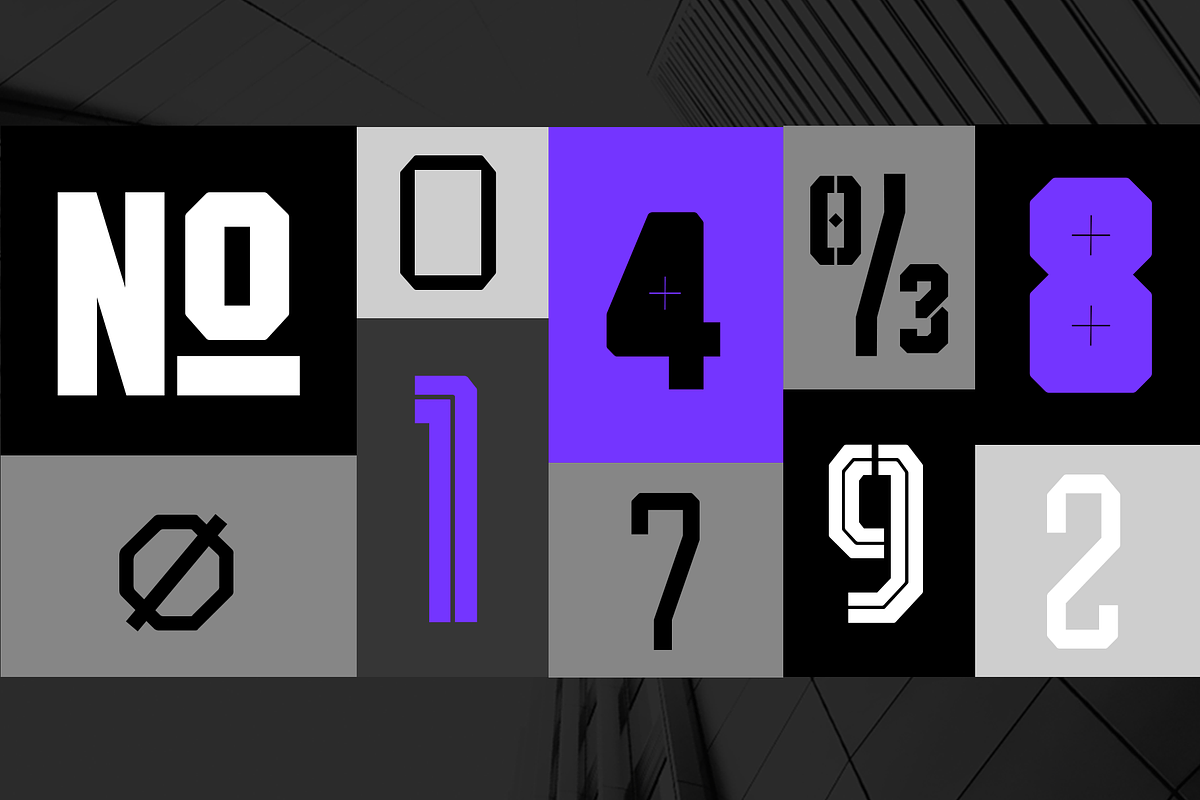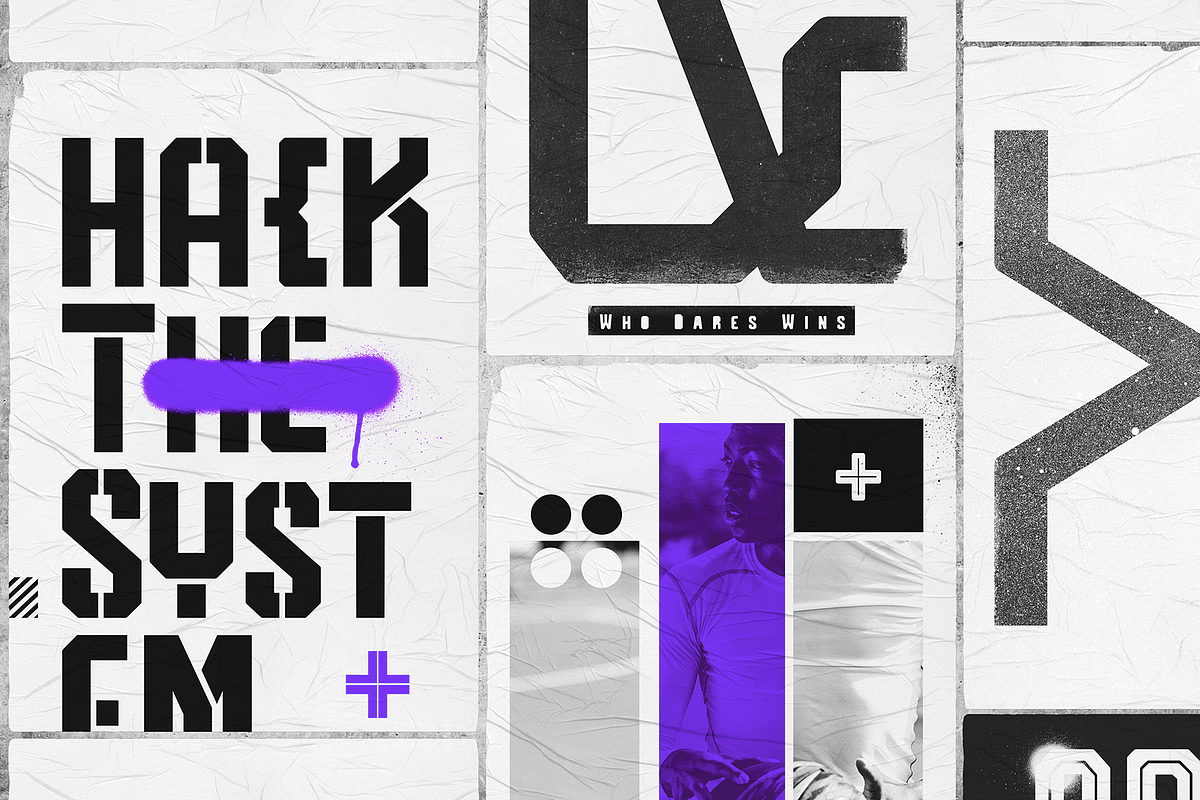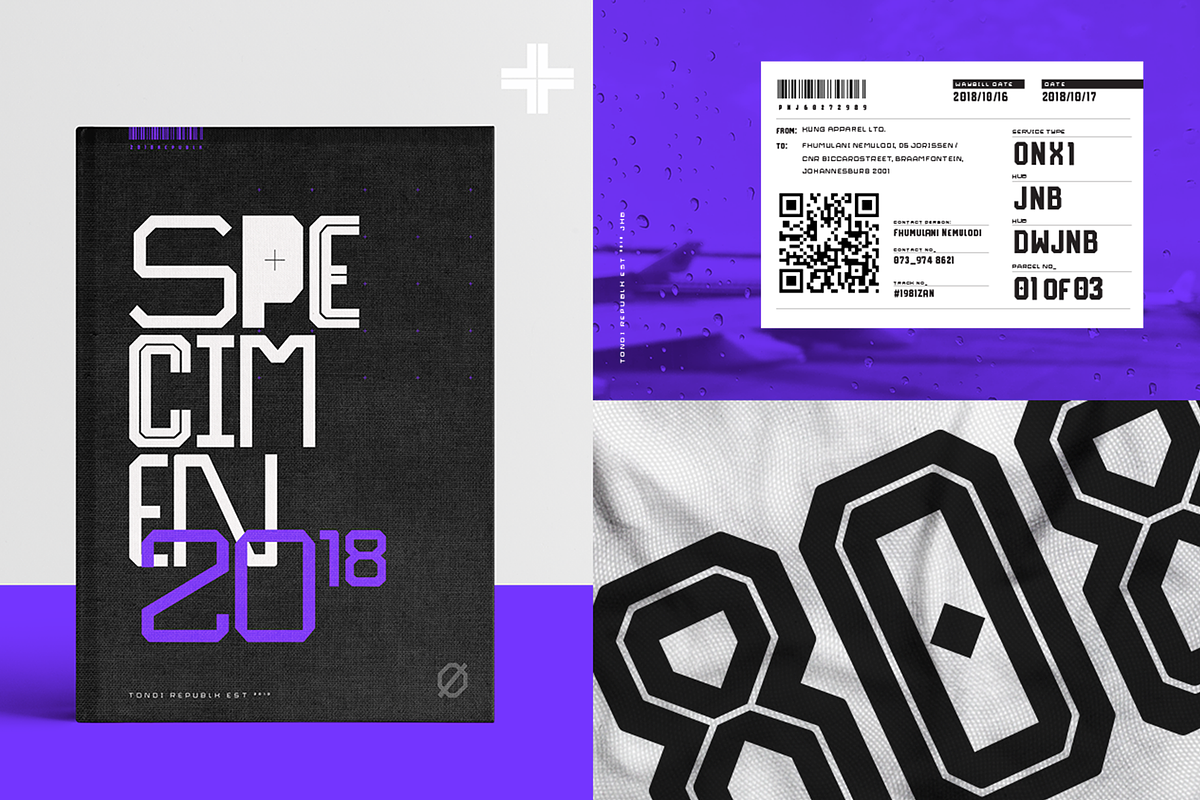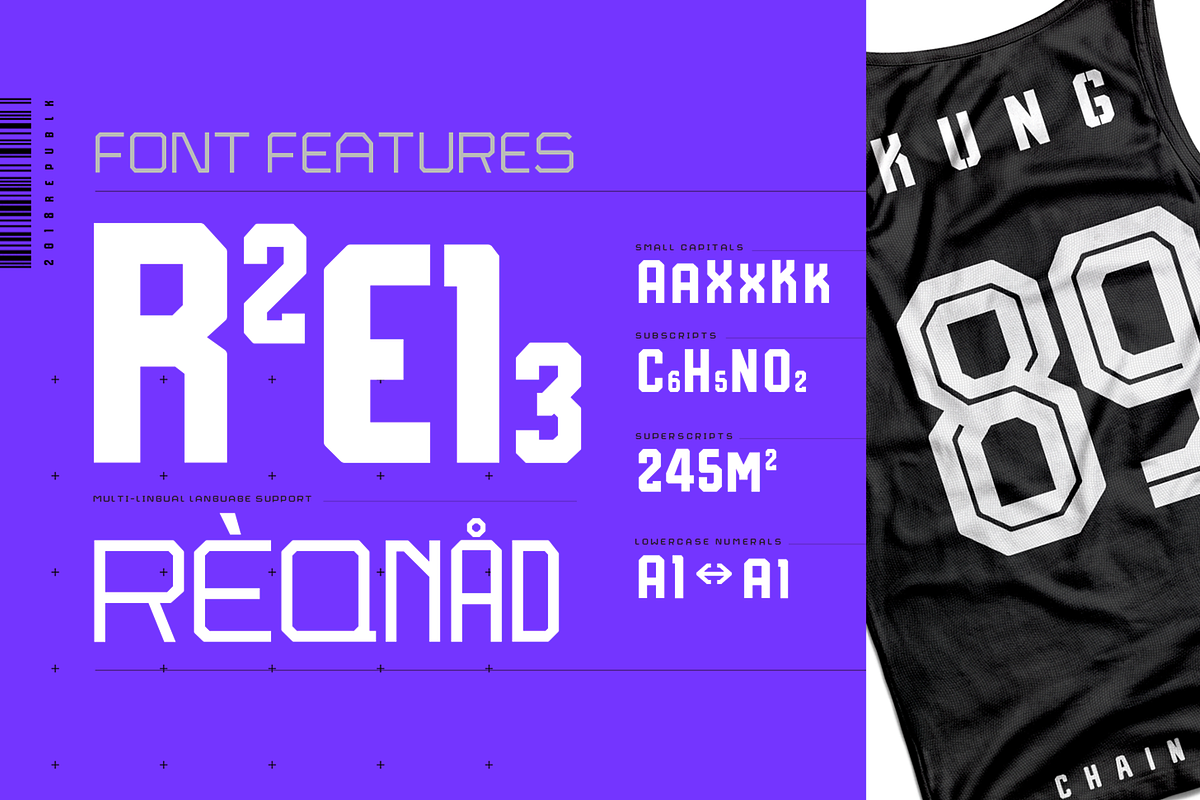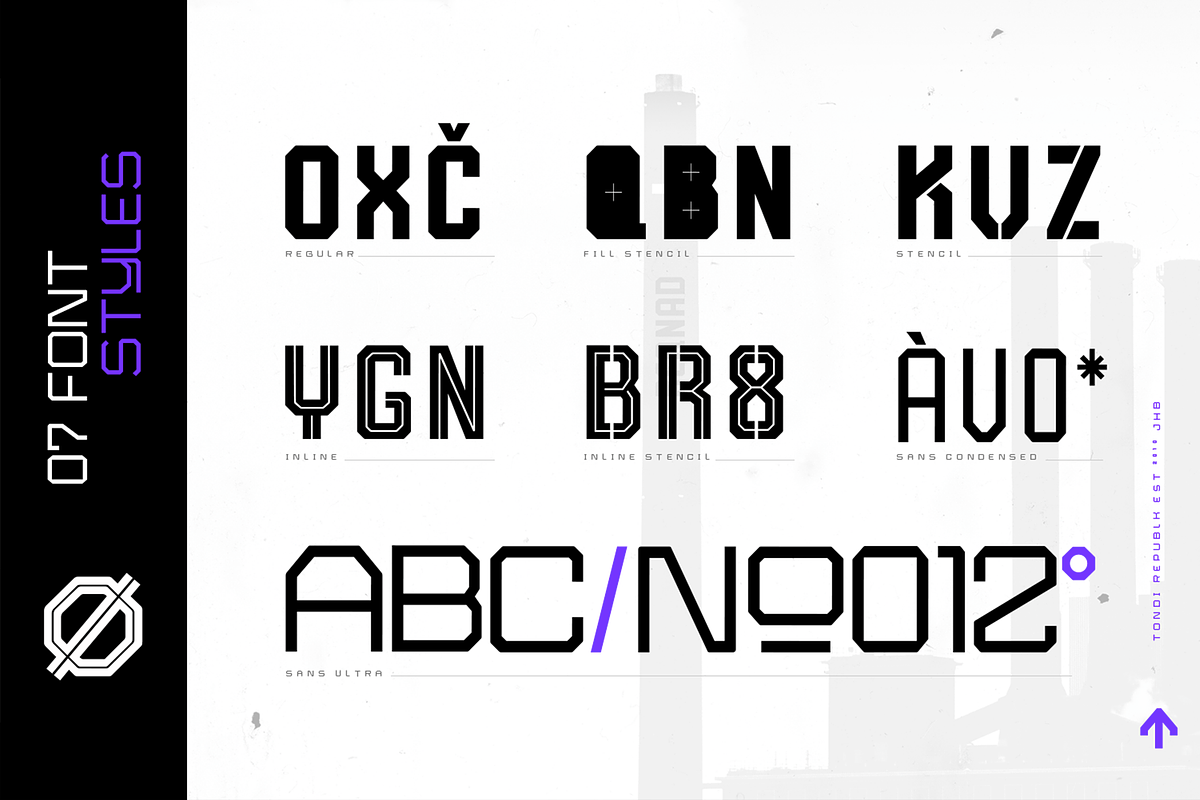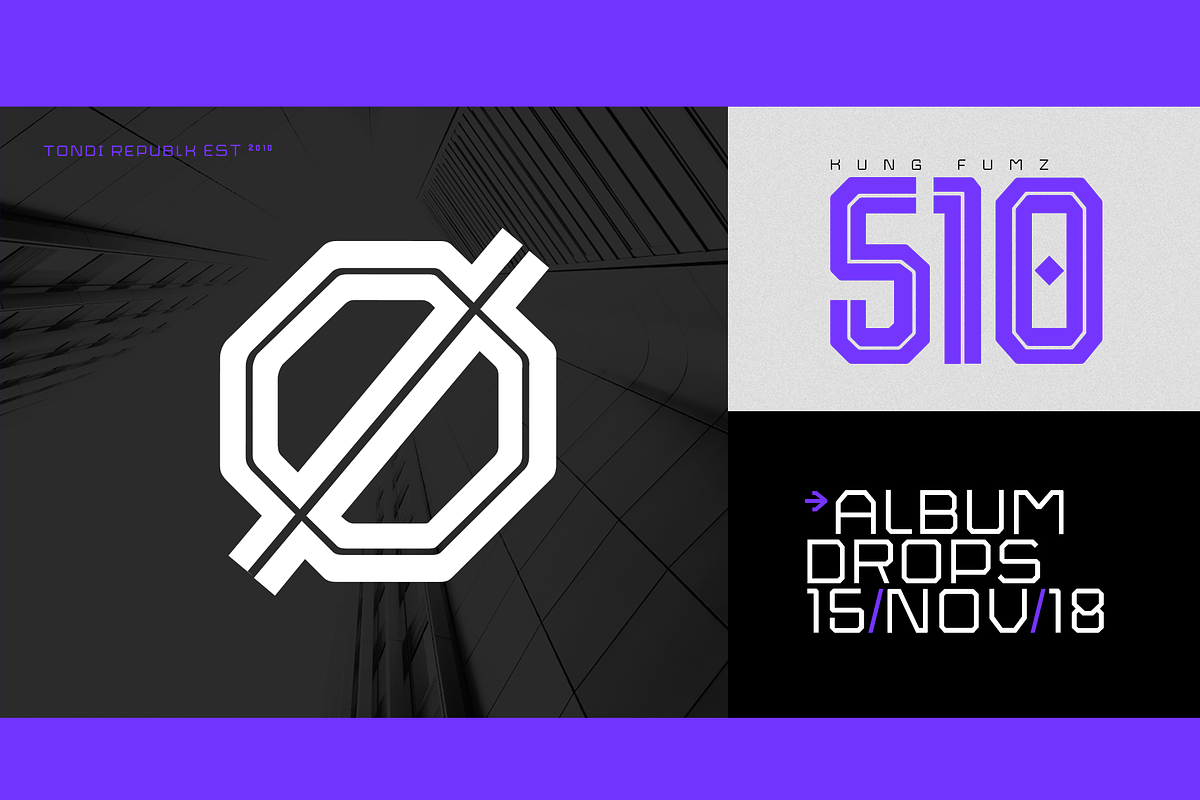
Reqnad Display Font Collection
Reqnad Display is part of a series of typefaces by Tondi Republk, inspired by modern geometric industrial design and architecture. The Reqnad Display type system consists of seven typefaces with varying visual styles and weights which can be paired interchangeably to create harmonious, versatile and impactful visual communication systems.